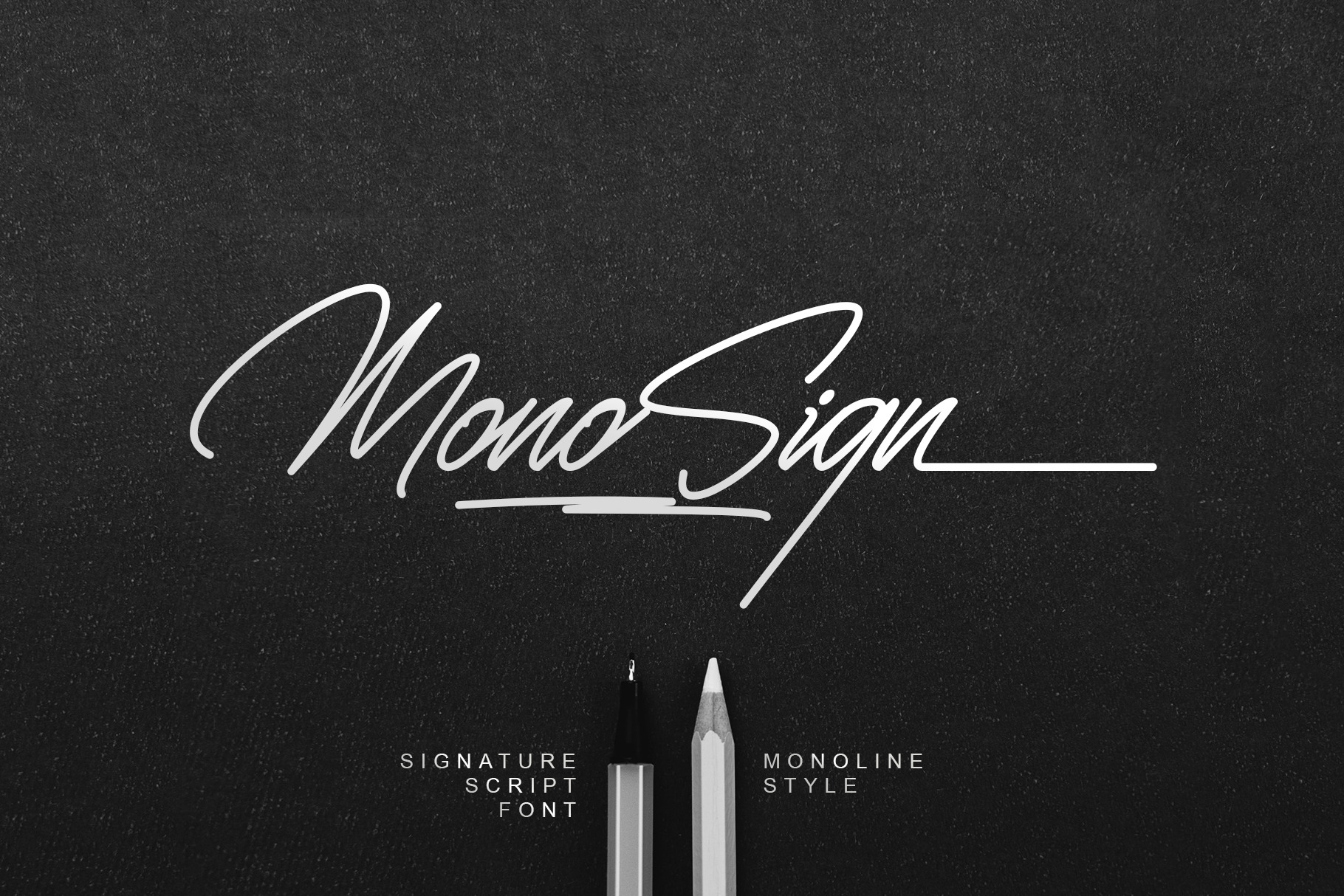
Monosign | Signature Typeface
Monosign is a Beautiful Signature font, with a Monoline Style. Is perfect for many different project such as logos & branding, invitation, stationery, wedding designs, social media posts, advertisements, product packaging, product designs, label, photography, watermark, special events or anything.This font is PUA encoded which means you can access all of the glyphs and swashes with ease!
- Titling
Quick access underline swash
- Add number (1–7) + underscore + number (1–7)
- Example: 1_1, 2_2, 3_3, 4_4, 5_5, 6_6, 7_7